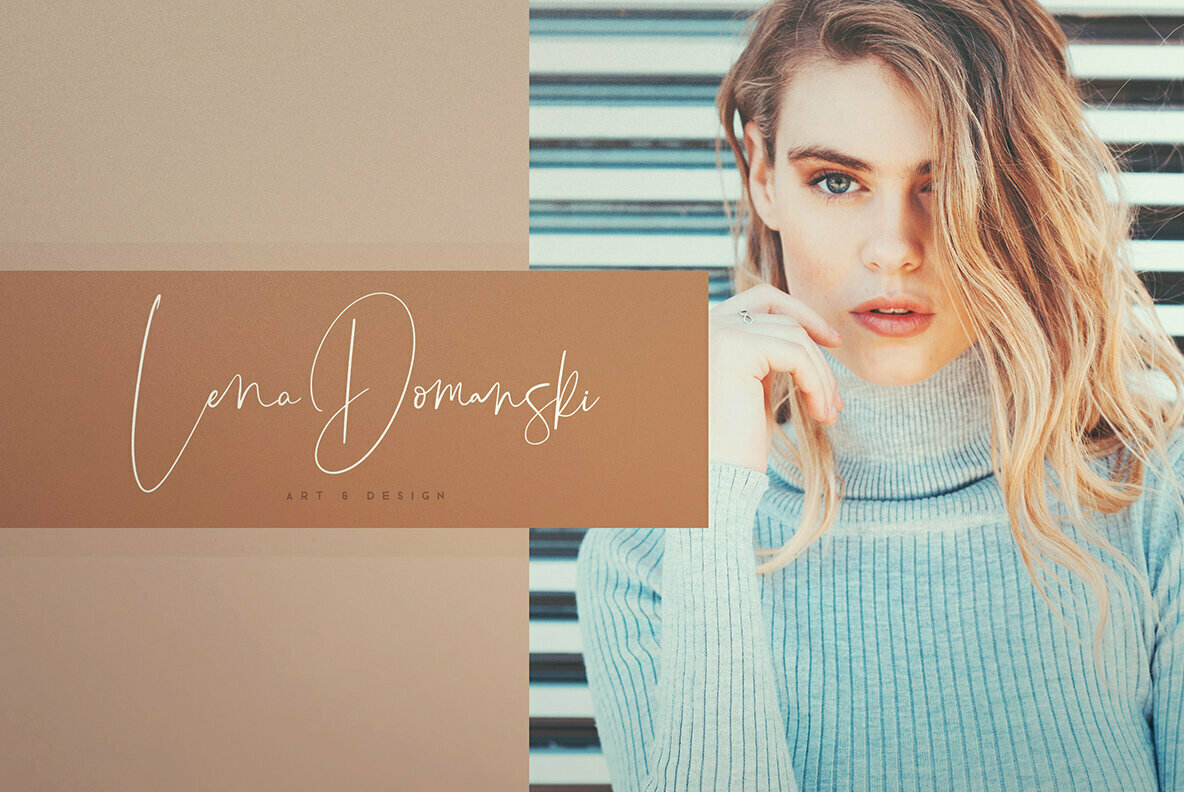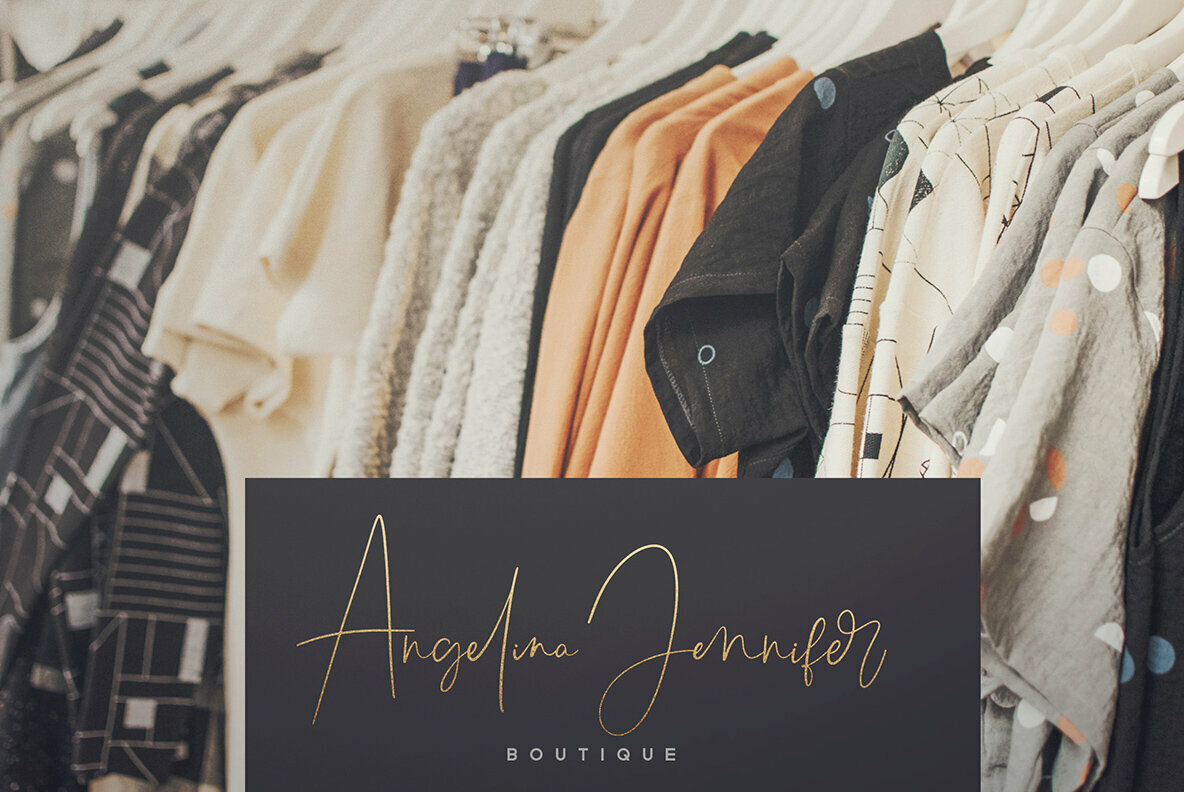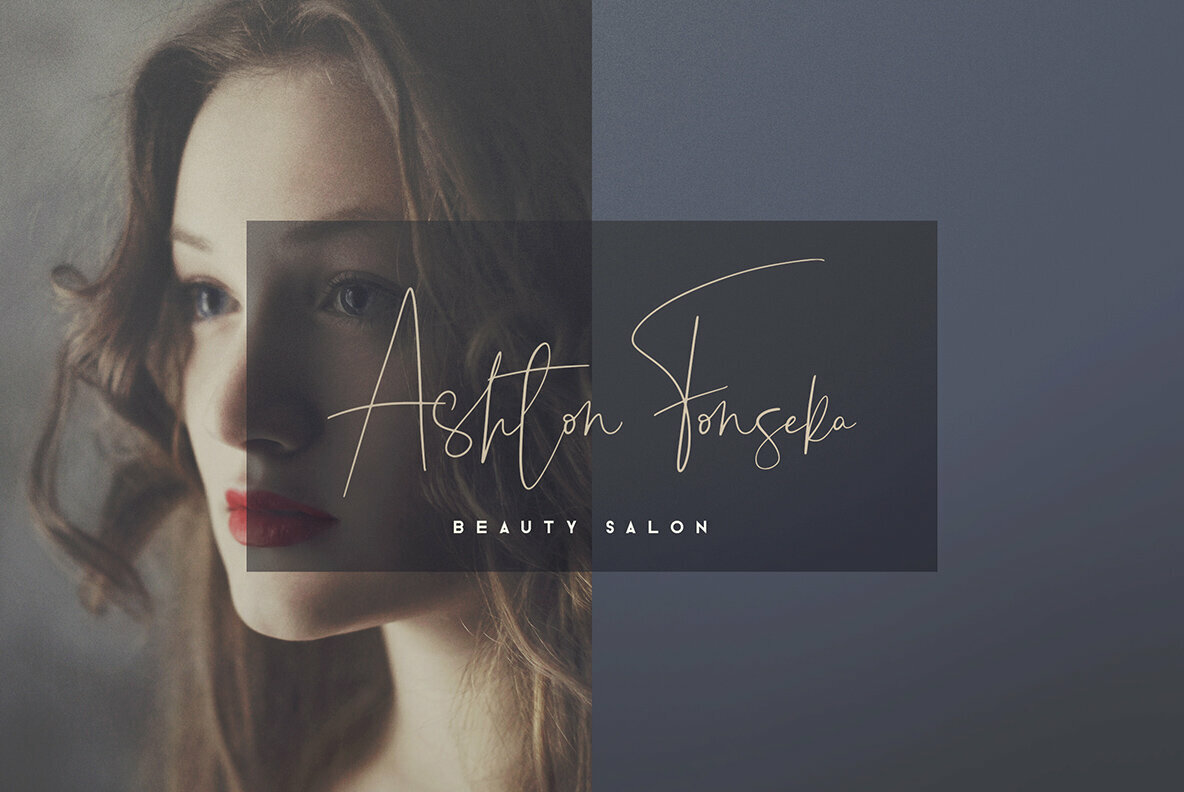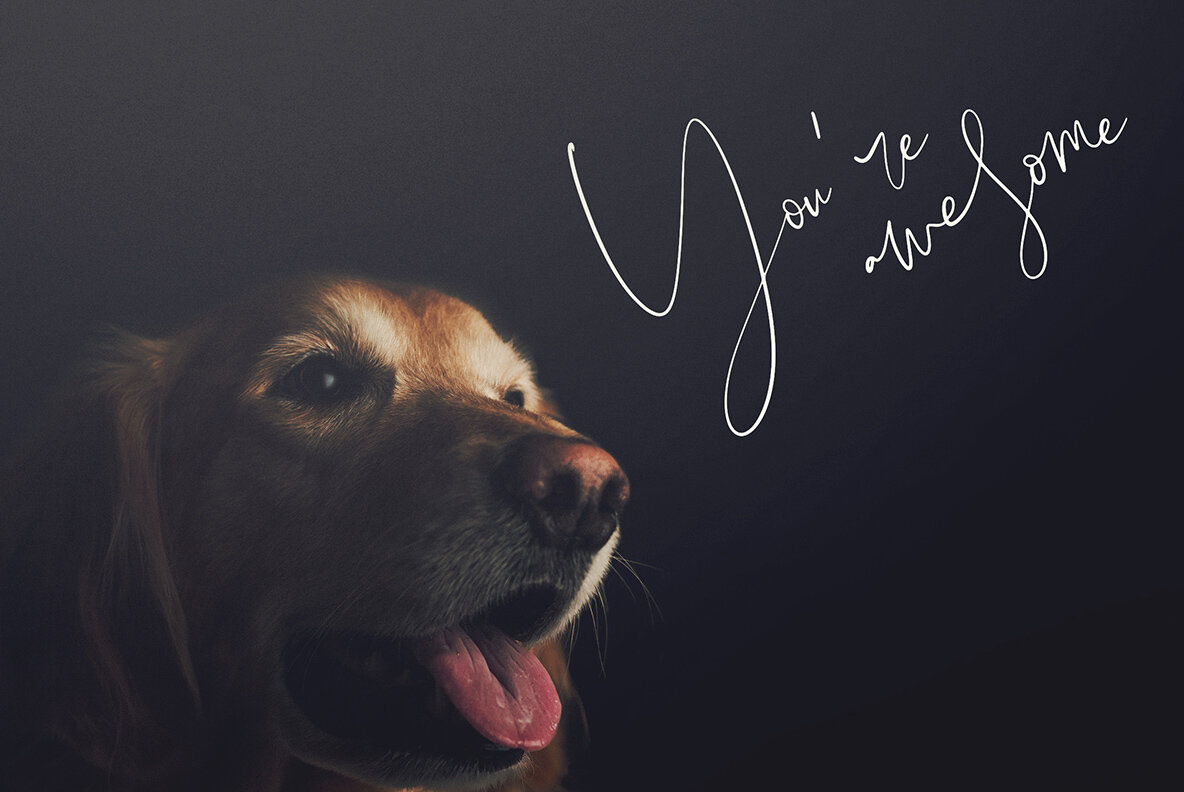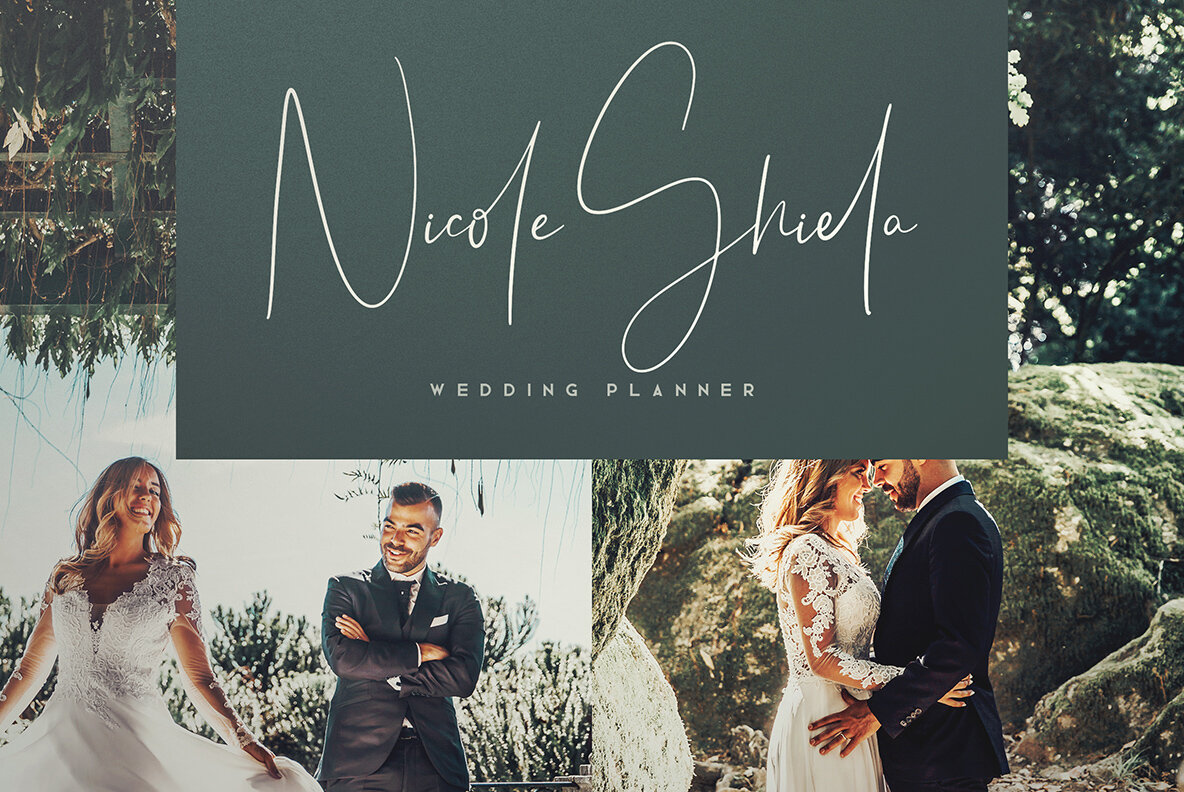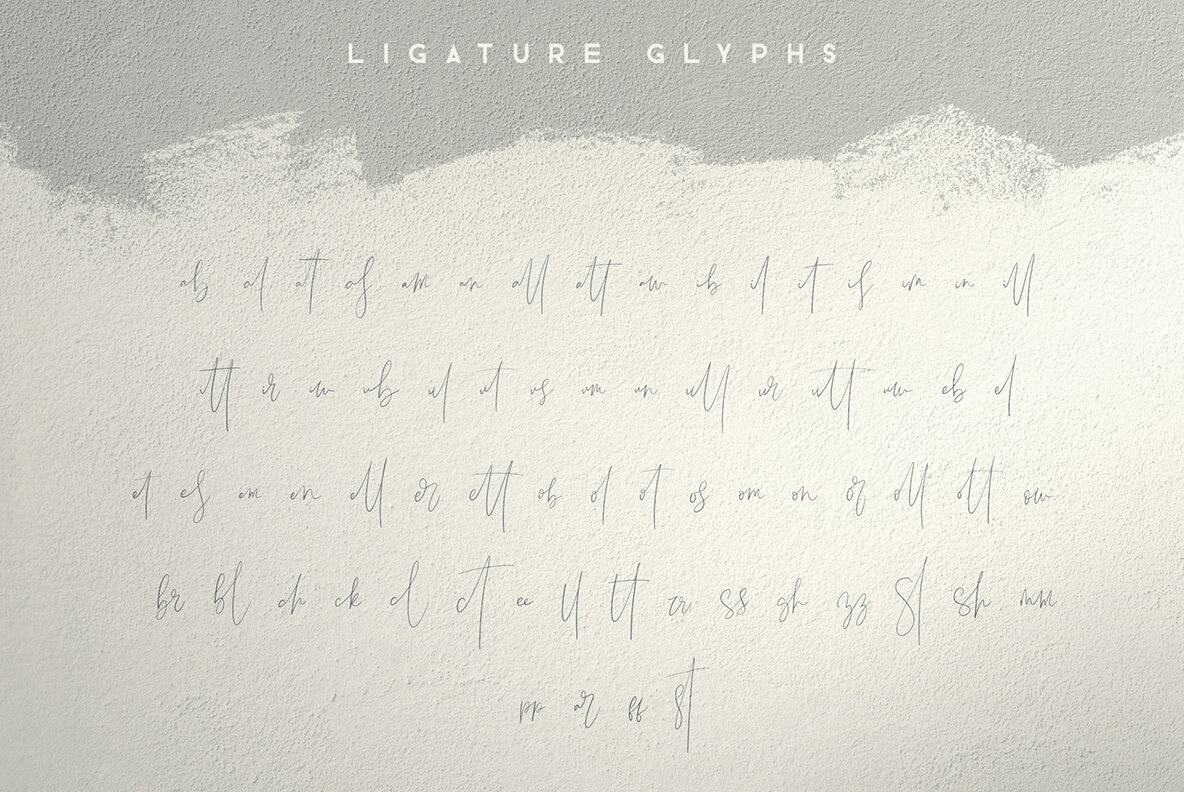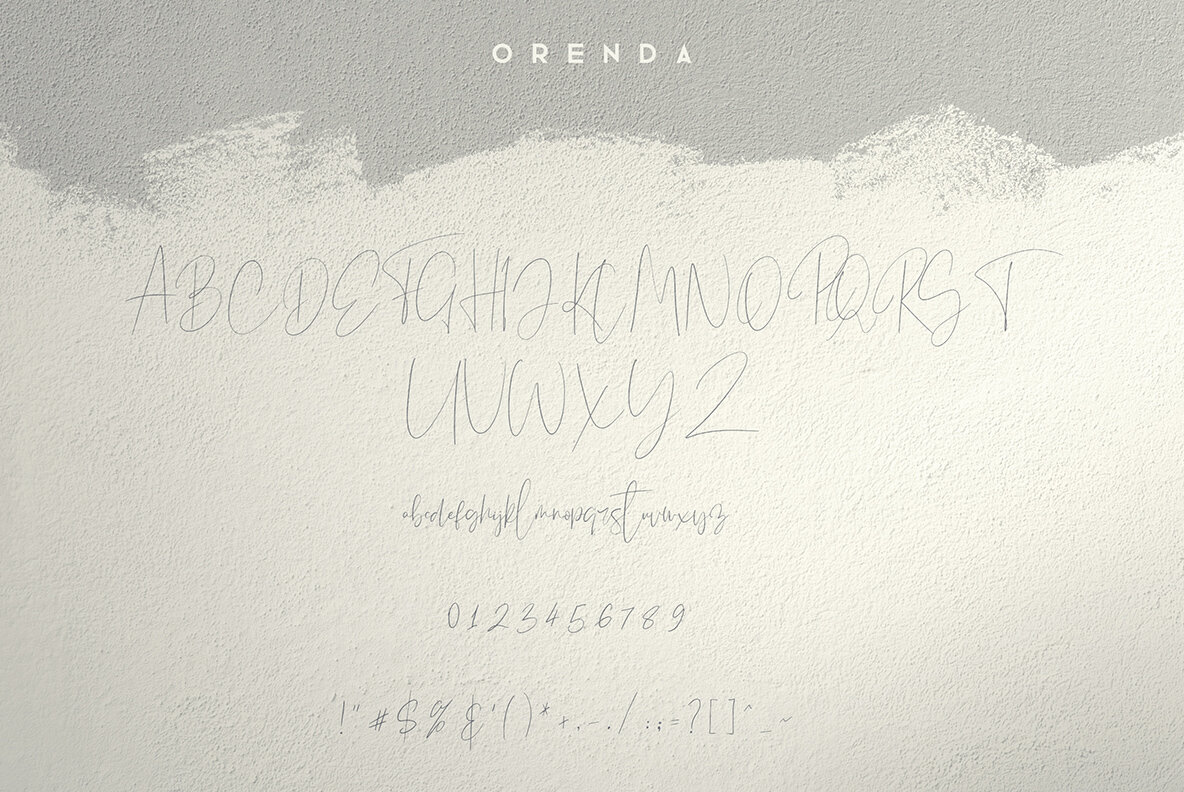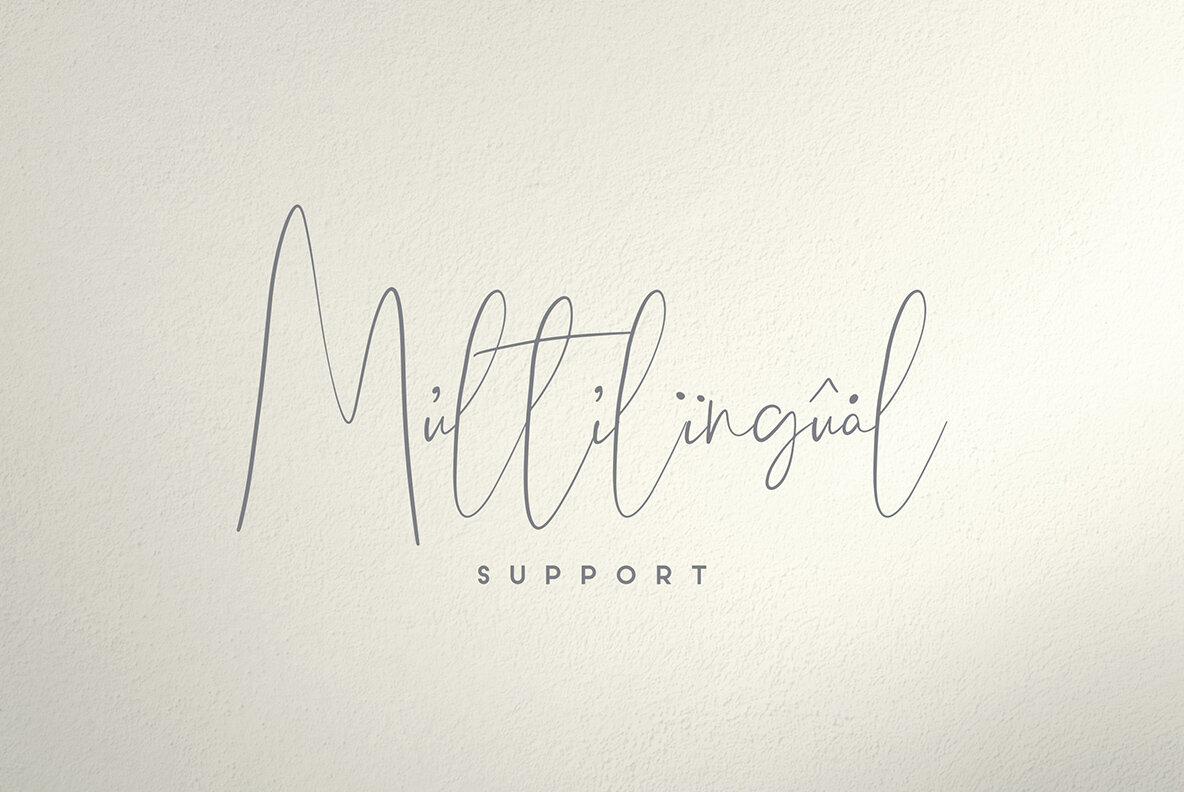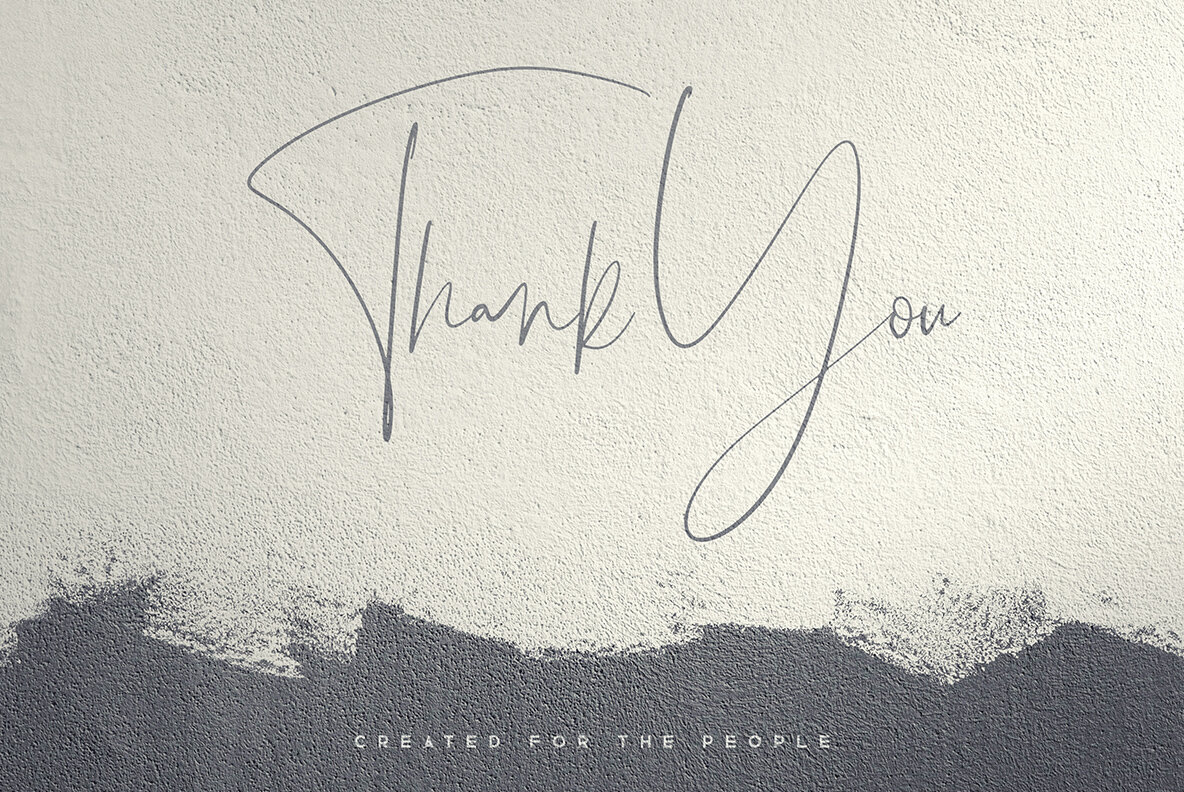
Orenda
Orenda presents itself as a clean and dynamic script font, embodying elegance with a spirited bounce in every letter. Designed to adapt seamlessly across a range of applications, it features ligature glyphs and extends comprehensive multilingual support. The font's versatility makes it an exemplary choice for both substantial and petite text sizes, displaying a captivating visual appeal. The beauty of Orenda lies in its ability to enhance branding endeavors, accentuate homeware designs, and elevate product packaging. It gracefully adorns magazine headers and provides a chic text overlay for any background image, effortlessly communicating style and sophistication. Features:Orenda: A Versatile and Lively Script Font